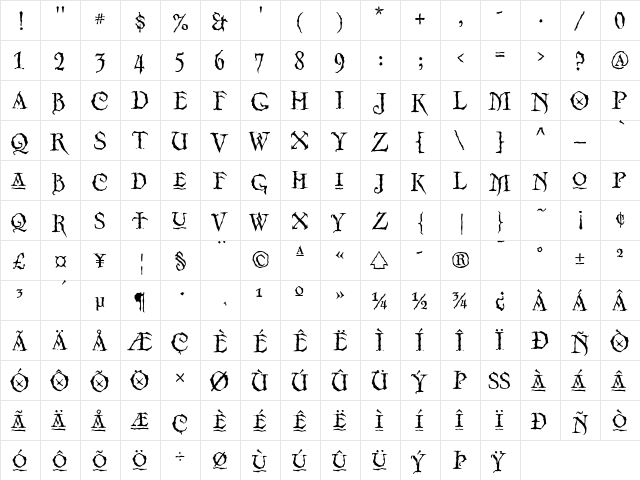
Merlin Regular
Design Context for Merlin Typeface
Merlin is a composed and adaptable typeface that performs quietly and consistently across a wide range of design contexts.